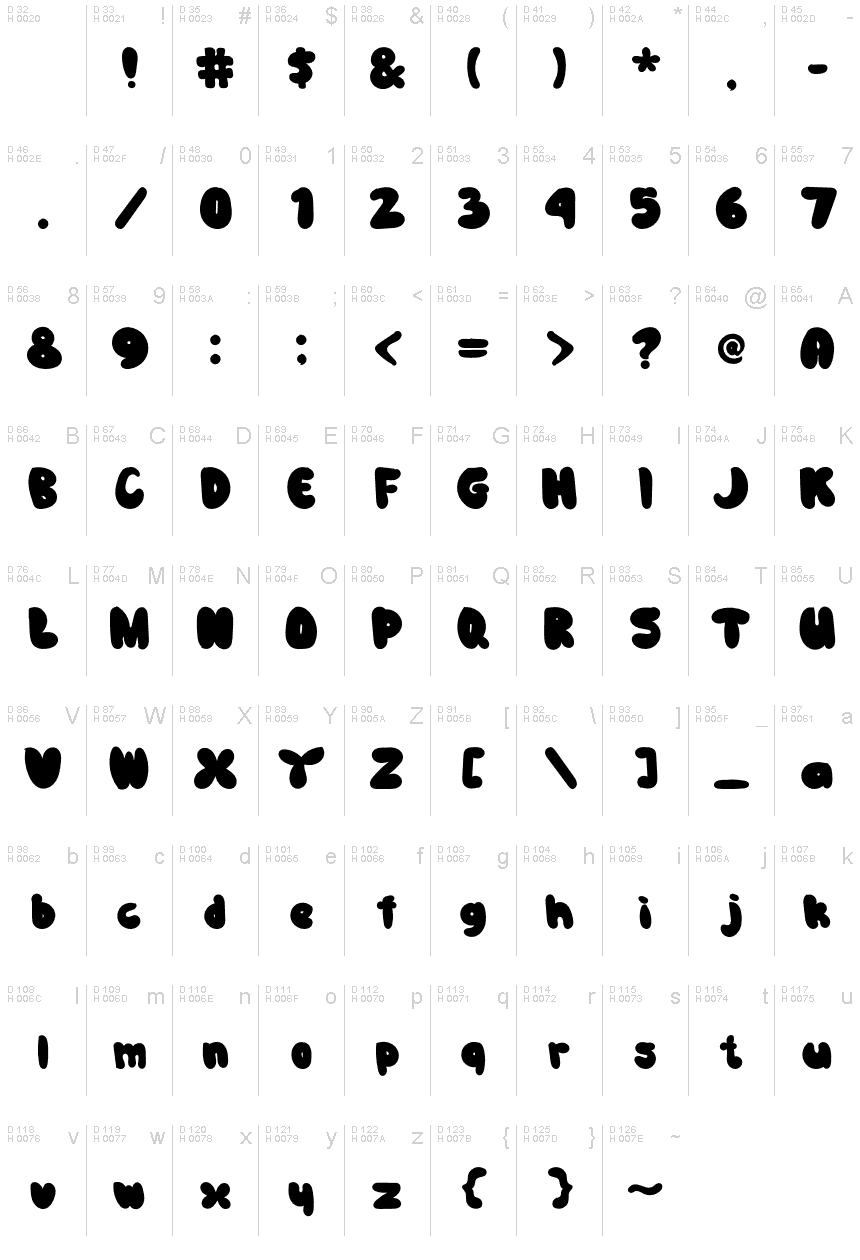
Good Summer
Good Summer, a charming display font by Muhammad Yafinuha, brings a touch of whimsy to any project.
With its extra-bold weight and cute cartoon style, this font is perfect for children's books, playful logos, vibrant packaging designs, and lively event invitations. Its unique personality effortlessly captures the essence of summer fun and adds a delightful twist to any creative endeavor.
Let Good Summer transport your audience into a world filled with joy and imagination.